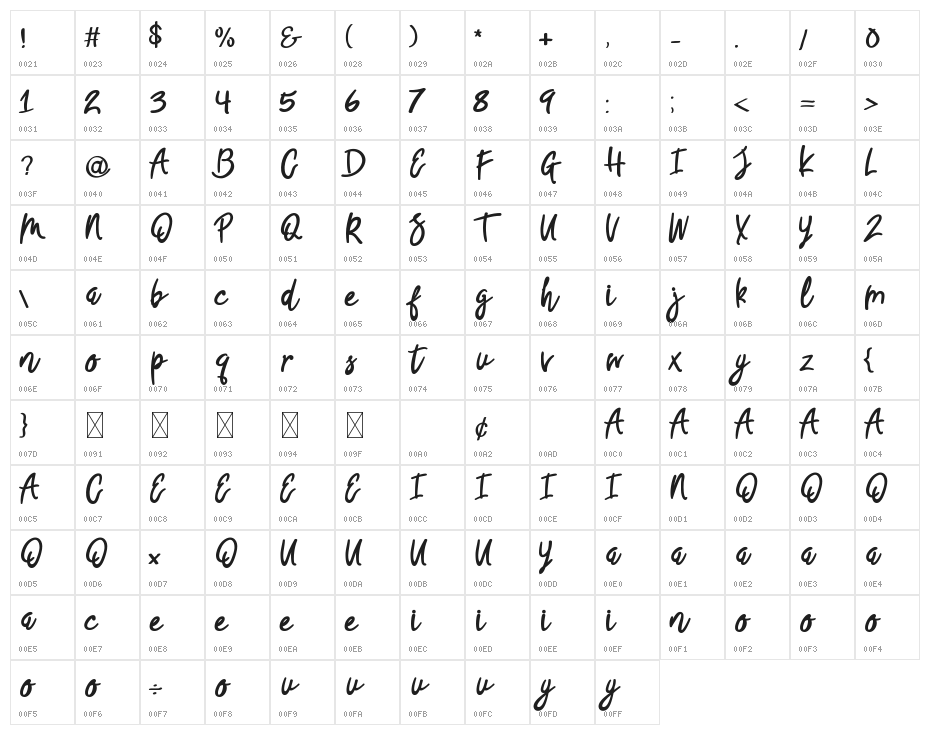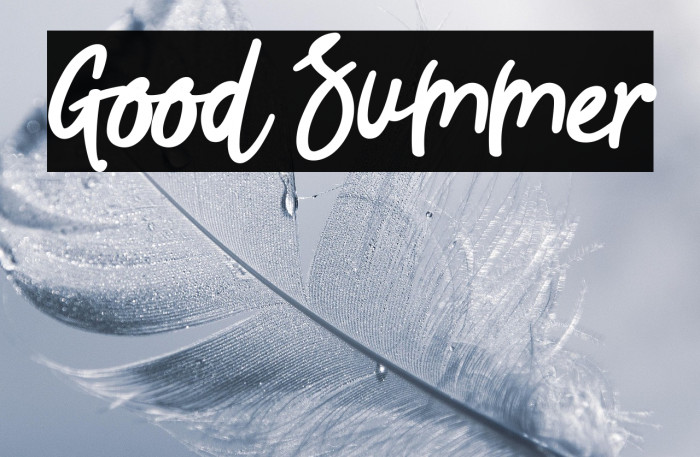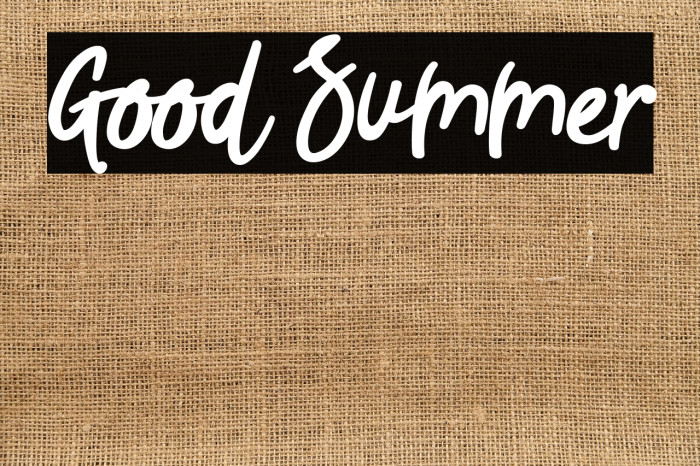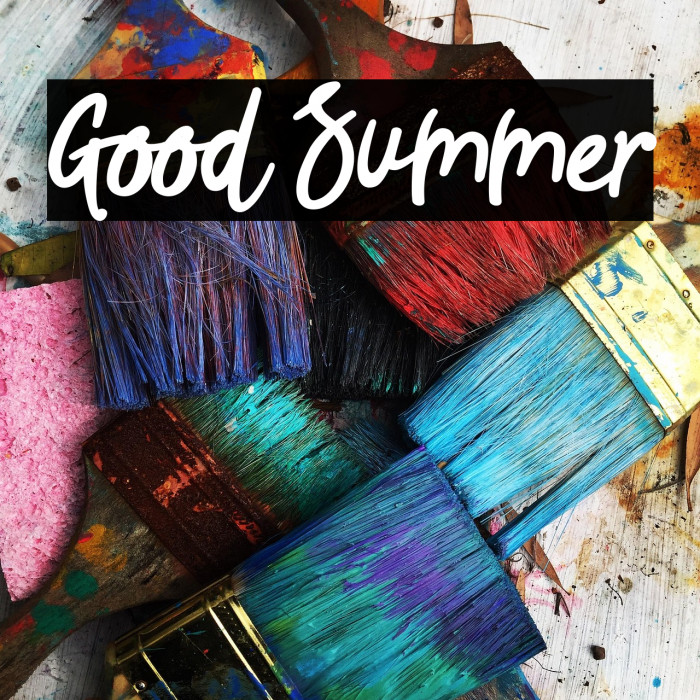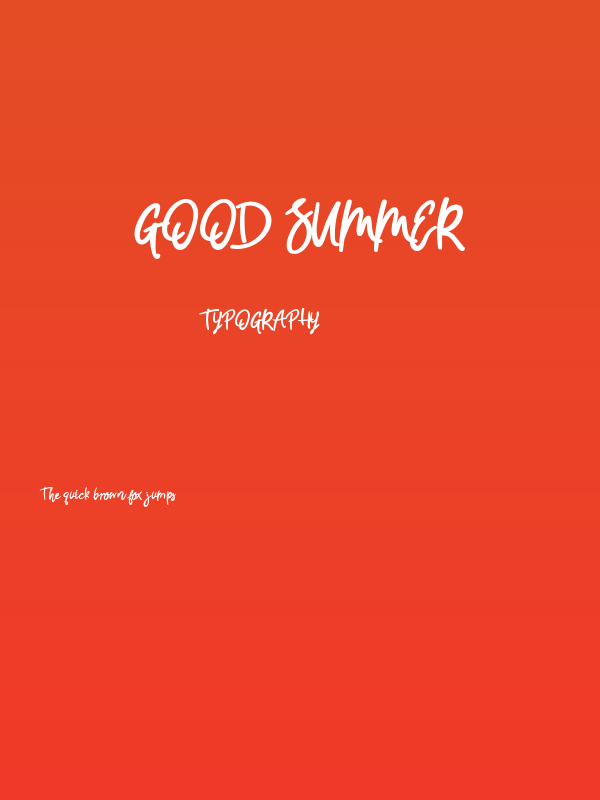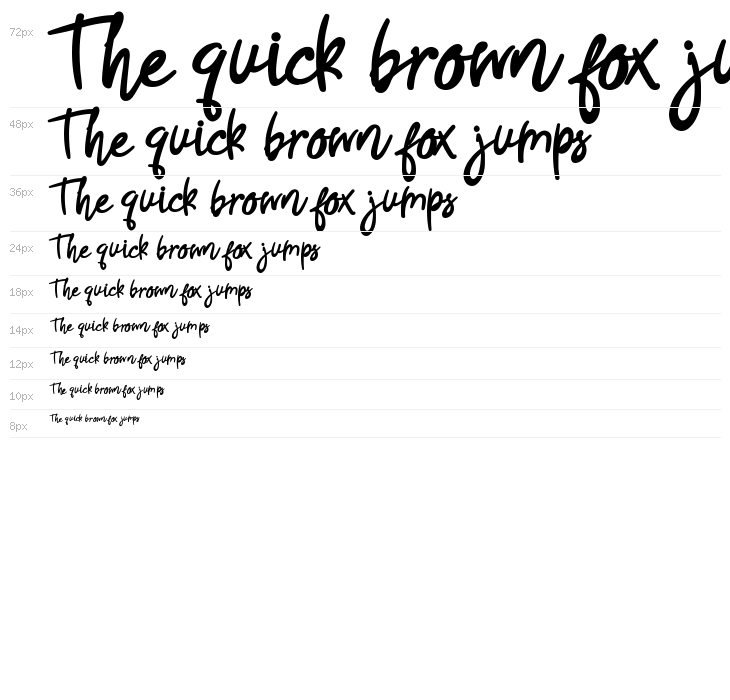
Good Summer Font
Good Summer Description
This font exudes a lively and energetic vibe with its bold, handwritten style. The letters are fluid and dynamic, featuring a consistent stroke width that gives it a cohesive look. The uppercase and lowercase characters maintain a playful yet legible form, making it suitable for various creative projects. The numerals and special characters are crafted with the same attention to detail, ensuring uniformity across all glyphs. Its informal and friendly appearance makes it ideal for designs that aim to convey a sense of warmth and approachability.
| Use Case | Logos, Headlines, Social media graphics |
| Proposed Projects | Ideal for greeting cards, invitations, social media graphics, and branding projects that require a personal touch. |